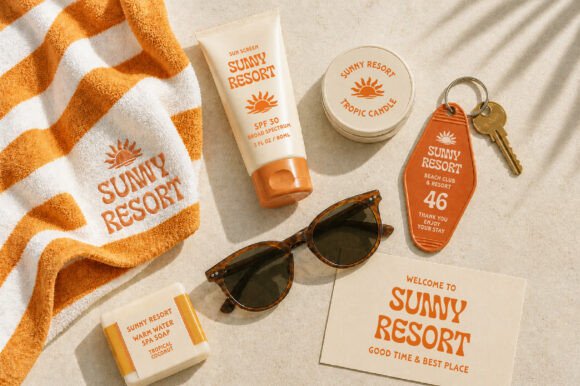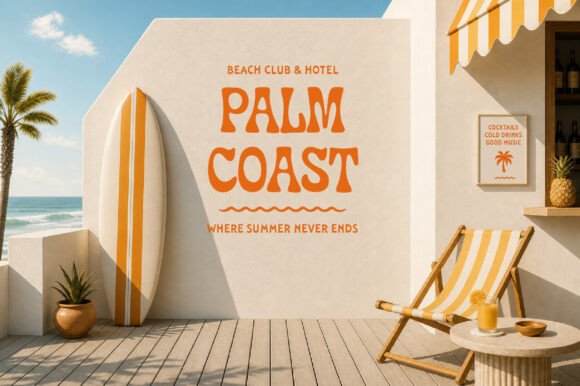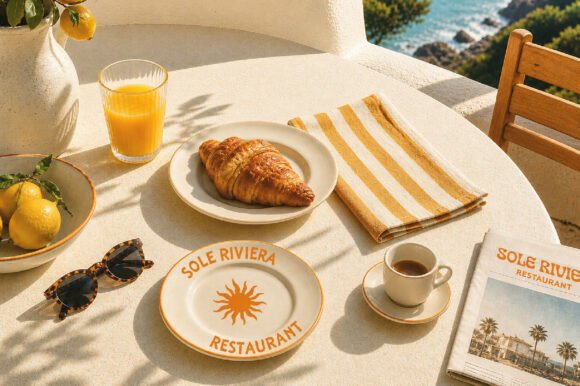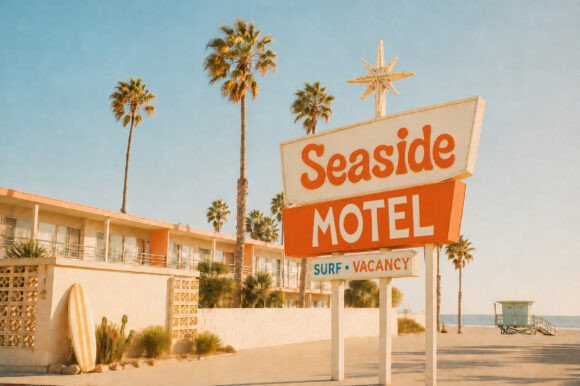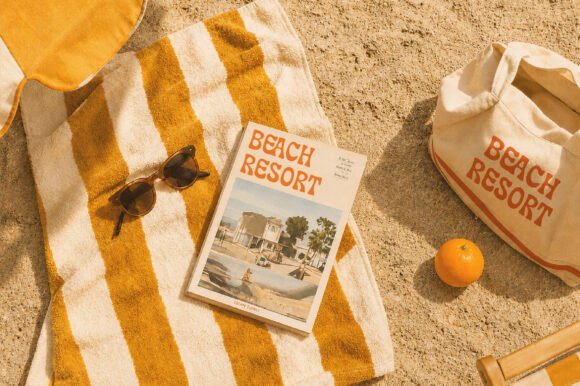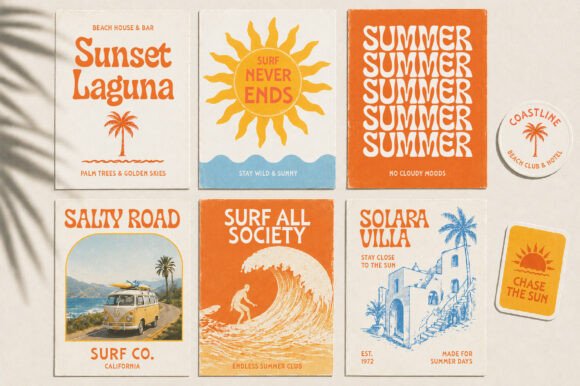
Introduction to Laguna Tropic Font
Have you ever stumbled upon an old surf shop or a vintage beach motel sign, and instantly felt the nostalgia wash over you? The faded colors, the worn-out textures, and the warm, inviting vibe all combine to evoke a sense of a bygone era, one that’s synonymous with endless summers and carefree days. It’s this exact feeling that the Laguna Tropic Font duo aims to capture, transporting you to a world of retro surf culture and tropical resorts.
As a designer, you’re always on the lookout for that special something to elevate your creative project and make it truly stand out. The Laguna Tropic Font is that something – a high-quality, versatile design resource that can add a touch of warmth and personality to any visual branding, from logos to editorial layouts. With its soft organic curves and handcrafted shapes, this font is perfect for designers who want to create a nostalgic beachside aesthetic with ease.
Key Features of Laguna Tropic Font
- Unique Tropical Design: The Laguna Tropic Font is a beautiful and elegant font, perfect for any creative project that requires a touch of tropical charm.
- High-Quality Design Resource: This font is designed with precision and care, ensuring a high-quality design resource for any project.
- Perfect for Creative Projects: Whether it’s a logo, poster, or brochure, the Laguna Tropic Font is an excellent choice for any creative project that requires a unique and stylish touch.
Honest Review: Laguna Tropic Font
I recently stumbled upon the Laguna Tropic Font while working on a creative project, and I must say it’s a hidden gem. The font has a unique blend of tropical and modern elements that can instantly elevate your design.
One of the standout features of the Laguna Tropic Font is its versatility. You can use it for a wide range of design projects, from branding and advertising to digital products and print materials.
- High quality and crisp typography
- Only available in a limited number of font styles (not a comprehensive font family)
- Not suitable for complex or large-scale designs (best for smaller projects)
Overall, I’m impressed with the Laguna Tropic Font’s potential and versatility. It’s a great addition to any designer’s toolkit, especially for those working on creative projects that require a unique touch.